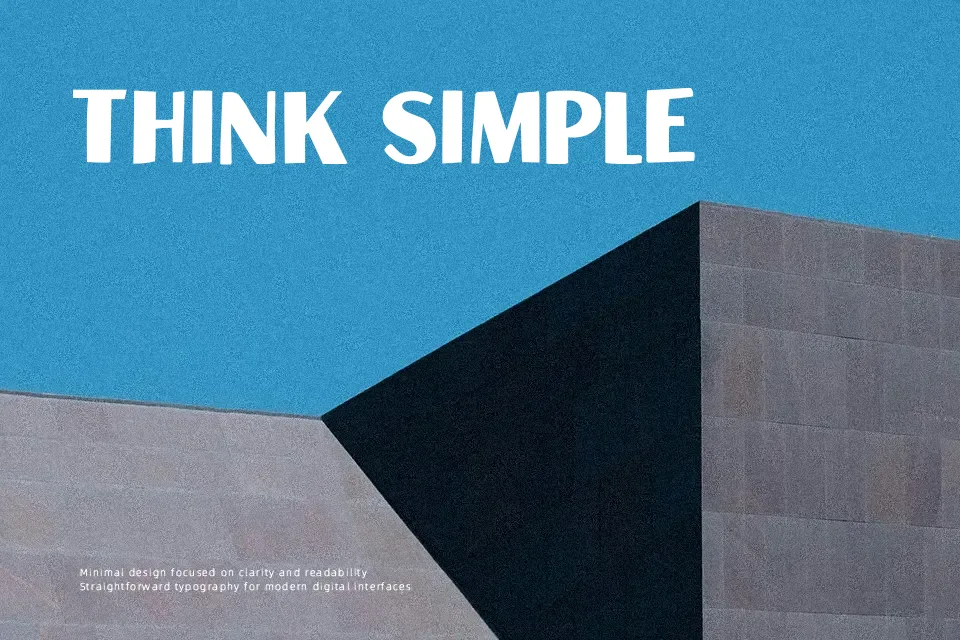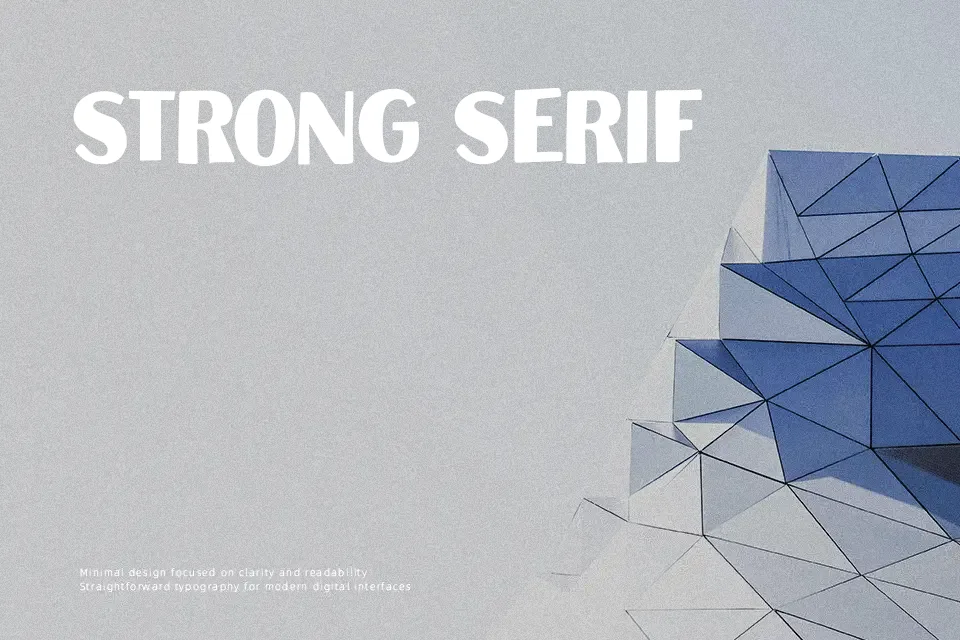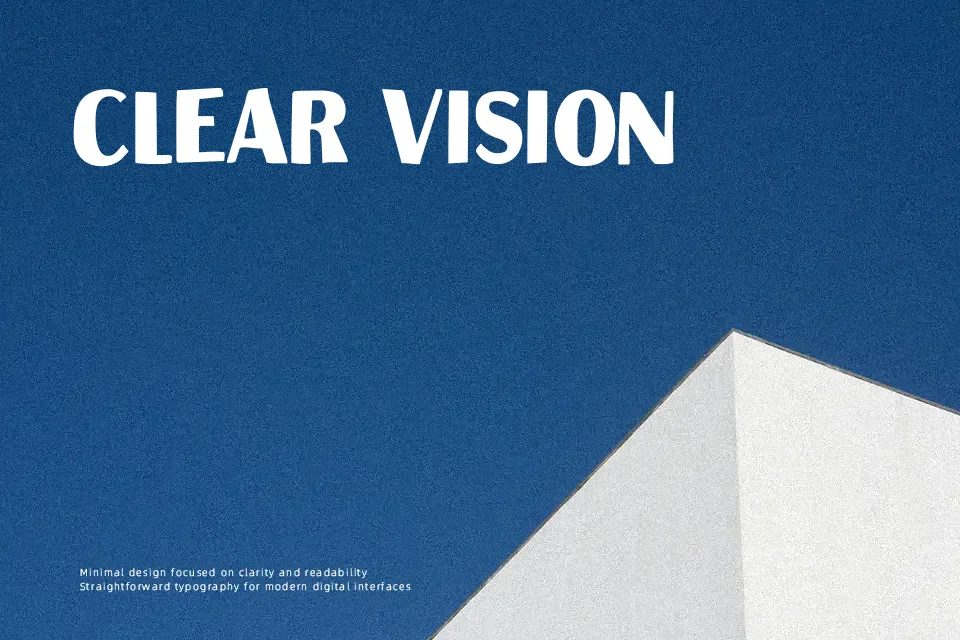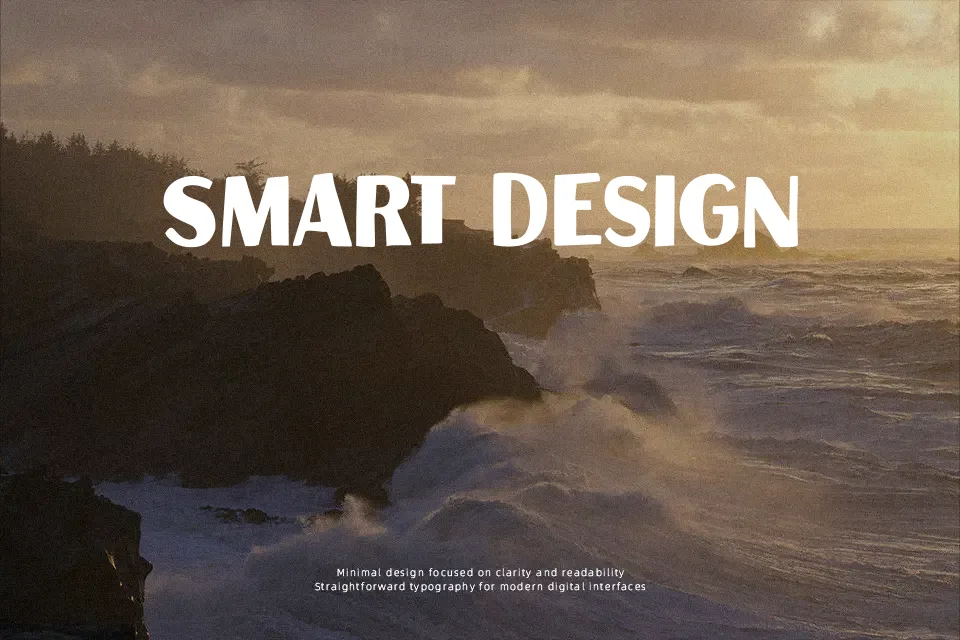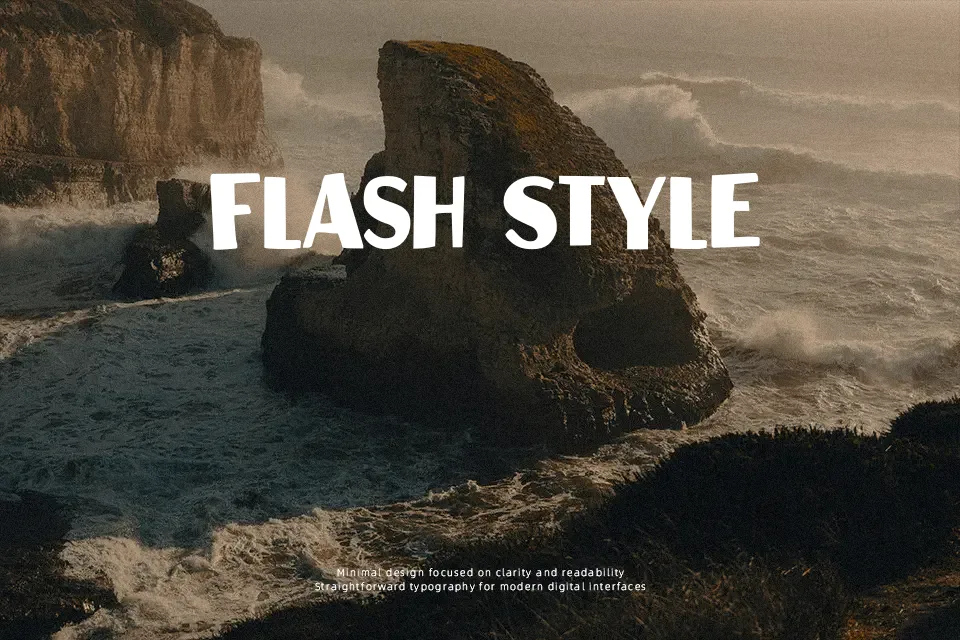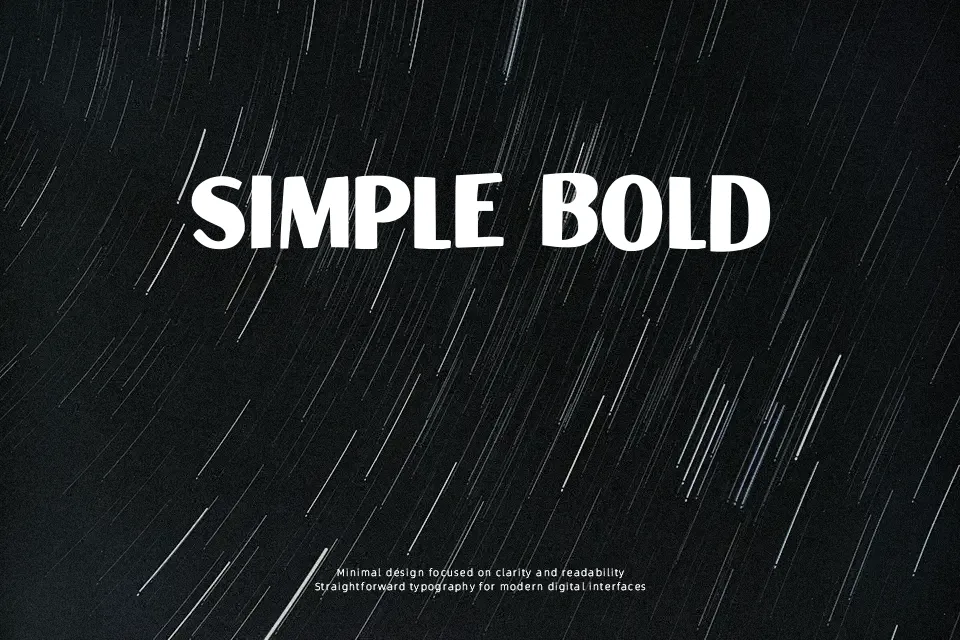
Aficionado Font
Designed by Hanoded
Built on hand-drawn strokes with a nod to turn-of-the-century sans serif lettering, Aficionado carries a warmth that purely geometric typefaces often lack. The letterforms are all-caps, evenly spaced, and sit somewhere between casual and refined — approachable without losing structure. Its rounded terminals soften what could otherwise feel rigid, making it work naturally on craft packaging, vintage-style posters, or boutique branding. The italic variant adds just enough lean to signal energy without tipping into restless. That said, the all-caps structure is a real constraint — it eliminates mixed-case typesetting entirely, which rules it out for any context requiring lowercase body text or proper-name formatting. If you need a single expressive weight for display purposes, it delivers; for systems that require typographic hierarchy across sizes, look elsewhere.
Best For:- Craft beverage or artisan product label headers
– Vintage-style poster and event title treatments
– Boutique brand wordmarks and packaging callouts
– Social media quote graphics needing legible personality
Not Ideal For:- Body text or long-form reading environments
– Designs requiring lowercase letterforms
– Corporate documents or formal editorial layouts
Perfect for branding, logo, and packaging, with a classic and display style.